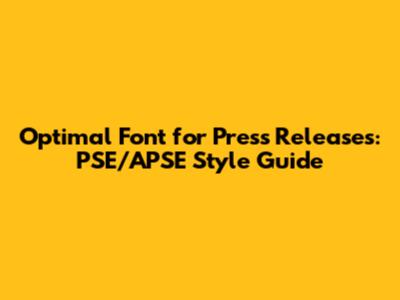
Crafting a press release that grabs attention and conveys your message effectively involves more than just compelling content; it's also about presentation. One crucial aspect of presentation is the font you choose. The right font can enhance readability, professionalism, and overall impact, while the wrong font can make your press release look amateurish and difficult to read. For those adhering to the Philippine Stock Exchange (PSE) or the Asia-Pacific Stock Exchange (APSE) guidelines, selecting the appropriate font style is paramount. These guidelines, though they may not explicitly dictate a specific font, implicitly emphasize clarity and professionalism. This article delves into the optimal font choices for press releases, considering the nuances of PSE/APSE expectations and general best practices in typography for professional communications. Let's explore how font selection plays a pivotal role in ensuring your press release is well-received and taken seriously by media outlets, investors, and the public alike.
When deciding on a font, it's essential to think about its readability both on screen and in print. Given that press releases are often distributed digitally, ensuring that your font renders well across various devices and platforms is critical. A font that looks great on your high-resolution monitor might appear blurry or distorted on a smartphone screen or when printed out. Therefore, selecting a font that maintains its clarity and legibility across different mediums is a fundamental consideration. Beyond technical aspects, the font's aesthetic also plays a significant role. The font should align with the tone and branding of your organization. For instance, a more traditional serif font might convey a sense of authority and trustworthiness, while a modern sans-serif font might project innovation and forward-thinking. Balancing readability with the desired aesthetic impact is key to making a strong impression with your press release. It's also worth noting that consistency in font usage throughout the document, including headings, body text, and captions, contributes to a polished and professional appearance. A well-chosen font not only makes your press release easier to read but also reinforces your brand identity, leaving a lasting positive impression on your audience. Ultimately, the goal is to select a font that supports your message and enhances the overall impact of your press release.
Understanding PSE/APSE Guidelines
While the Philippine Stock Exchange (PSE) and the Asia-Pacific Stock Exchange (APSE) may not explicitly mandate a particular font for press releases, their emphasis on clarity, accuracy, and professionalism implicitly guides the choice. These exchanges prioritize the dissemination of information that is easily accessible and understandable to investors and the public. Therefore, your font selection should reflect these values, ensuring that the content is legible and presents a polished image. While specific font requirements might be absent, adhering to general guidelines for business communication is crucial. This means avoiding overly decorative or unconventional fonts that could distract from the message or appear unprofessional. Instead, opt for fonts that are known for their readability and clean design. Think of your font choice as part of your overall branding and communication strategy; it should align with the image you want to project as a reliable and credible source of information. Moreover, consider the context in which your press release will be viewed. With increasing reliance on digital platforms, your font should render well on various devices and screen sizes. This ensures that your message is accessible to everyone, regardless of their preferred viewing method. Ultimately, while PSE/APSE guidelines may not specify a particular font, they underscore the importance of clarity and professionalism, which should be the guiding principles in your font selection process. By prioritizing readability and aligning your font choice with your brand image, you can ensure that your press releases effectively communicate your message and meet the implicit expectations of these exchanges.
When preparing press releases for submission to the PSE or APSE, it's beneficial to examine examples of successful releases from other companies. Pay attention to the fonts they use and how those fonts contribute to the overall presentation of the information. Analyzing these examples can provide valuable insights into industry standards and best practices. However, remember that simply copying another company's font choice is not enough. You should also consider how that font aligns with your own brand and communication goals. Additionally, be aware of any updates or changes to the PSE/APSE guidelines. While specific font requirements may not be explicitly stated, the exchanges may issue general recommendations or preferences regarding the format and presentation of press releases. Staying informed about these updates can help you ensure that your releases meet the highest standards of professionalism and are well-received by the exchanges and the investing public. Furthermore, don't hesitate to seek feedback from colleagues or communication professionals on your font choice. A fresh perspective can help you identify any potential issues with readability or overall presentation. By combining your understanding of PSE/APSE guidelines with industry best practices and expert feedback, you can confidently select a font that enhances the impact and credibility of your press releases.
Recommended Fonts for Press Releases
When it comes to selecting fonts for press releases, readability and professionalism are key. Several fonts consistently stand out as excellent choices due to their clarity and widespread recognition. Among the serif fonts, Times New Roman is a classic option that has been a staple in formal documents for decades. Its familiarity ensures that it is easily readable and universally recognized. However, some may find it somewhat overused, so it's essential to ensure that it aligns with your brand's aesthetic. Another strong serif choice is Georgia, which was specifically designed for screen readability. Its slightly wider letterforms and clear strokes make it an excellent option for digital press releases. For those who prefer sans-serif fonts, Arial is a popular and widely available option. Its clean, simple design makes it highly legible, and it renders well across various devices and platforms. However, like Times New Roman, it can be perceived as somewhat generic. A more modern sans-serif alternative is Calibri, which is the default font in Microsoft Office. Its rounded letterforms give it a slightly softer and more approachable feel than Arial, while still maintaining excellent readability. Ultimately, the best font for your press release will depend on your specific brand and the message you want to convey. However, these recommended fonts provide a solid foundation for ensuring that your press releases are both professional and easy to read.
Beyond the commonly used fonts like Times New Roman and Arial, exploring other options can help you find a font that better reflects your brand's personality. For example, Open Sans is a highly versatile sans-serif font that is known for its clean lines and excellent readability. It is a great choice for companies that want to project a modern and approachable image. Another option to consider is Lato, a sans-serif font that combines warmth with clarity. Its semi-rounded details give it a friendly feel, making it suitable for press releases that aim to connect with a wider audience. If you're looking for a serif font that is more distinctive than Times New Roman, consider Merriweather. This font was designed specifically for on-screen reading and features a large x-height, which enhances readability. When experimenting with different fonts, it's crucial to test them in various sizes and formats to ensure that they maintain their clarity and legibility. Pay attention to the spacing between letters and words, as this can significantly impact readability. Additionally, consider the overall tone and style of your press release. A more formal press release might benefit from a traditional serif font, while a more informal press release might be better suited to a modern sans-serif font. Ultimately, the goal is to find a font that not only looks good but also effectively communicates your message to your target audience.
Font Size and Spacing Considerations
Selecting the right font size and spacing is just as crucial as choosing the font itself. Optimal font size ensures readability, while appropriate spacing enhances the overall visual appeal and comprehension of your press release. A font that is too small can strain the eyes and discourage readers, while a font that is too large can appear unprofessional and overwhelming. Generally, a font size between 11 and 12 points is recommended for the body text of a press release. This size strikes a good balance between readability and space efficiency. For headings, a slightly larger font size, such as 14 or 16 points, can be used to create visual hierarchy and guide the reader through the document. However, it's essential to avoid using excessively large or bold fonts for headings, as this can make the press release look cluttered and unprofessional.
In addition to font size, spacing plays a significant role in readability. Adequate line spacing, also known as leading, prevents lines of text from appearing too cramped and improves the flow of reading. A line spacing of 1.15 to 1.5 is generally recommended for press releases. This spacing provides enough white space between lines to make the text easier to read without wasting too much space. Similarly, appropriate paragraph spacing helps to separate different ideas and improve the overall organization of the press release. Adding a blank line between paragraphs can make the text more visually appealing and easier to digest. When adjusting font size and spacing, it's essential to consider the specific font you are using. Some fonts may appear larger or smaller than others at the same point size, so it's crucial to adjust the size and spacing accordingly. Additionally, be mindful of the overall layout of the press release. Ensure that there is enough white space around the text to prevent it from feeling crowded. By carefully considering font size and spacing, you can create a press release that is both visually appealing and easy to read, maximizing its impact on your target audience.
Tools and Resources for Font Selection
Selecting the perfect font for your press release can feel like a daunting task, but thankfully, numerous tools and resources are available to help you make an informed decision. Online font libraries, font pairing tools, and typography guides can provide valuable insights and inspiration. One popular resource is Google Fonts, a vast library of free and open-source fonts that are optimized for web use. Google Fonts allows you to easily browse and preview different fonts, and it also provides helpful information about font pairings and usage recommendations. Another useful tool is FontPair, which helps you discover complementary font combinations that work well together. This can be particularly helpful if you're unsure about which fonts to use for headings and body text.
In addition to online resources, typography guides and style manuals can provide valuable guidance on font selection and usage. These resources often cover topics such as font classifications, readability best practices, and branding considerations. The Elements of Typographic Style by Robert Bringhurst is a highly regarded typography guide that offers comprehensive advice on all aspects of typography, from font selection to layout and design. When using these tools and resources, it's essential to keep your brand and target audience in mind. The fonts you choose should align with your brand's personality and appeal to your target audience. Additionally, be sure to test your font selections in various formats and on different devices to ensure that they maintain their clarity and legibility. By leveraging these tools and resources, you can confidently select fonts that enhance the impact and effectiveness of your press releases.